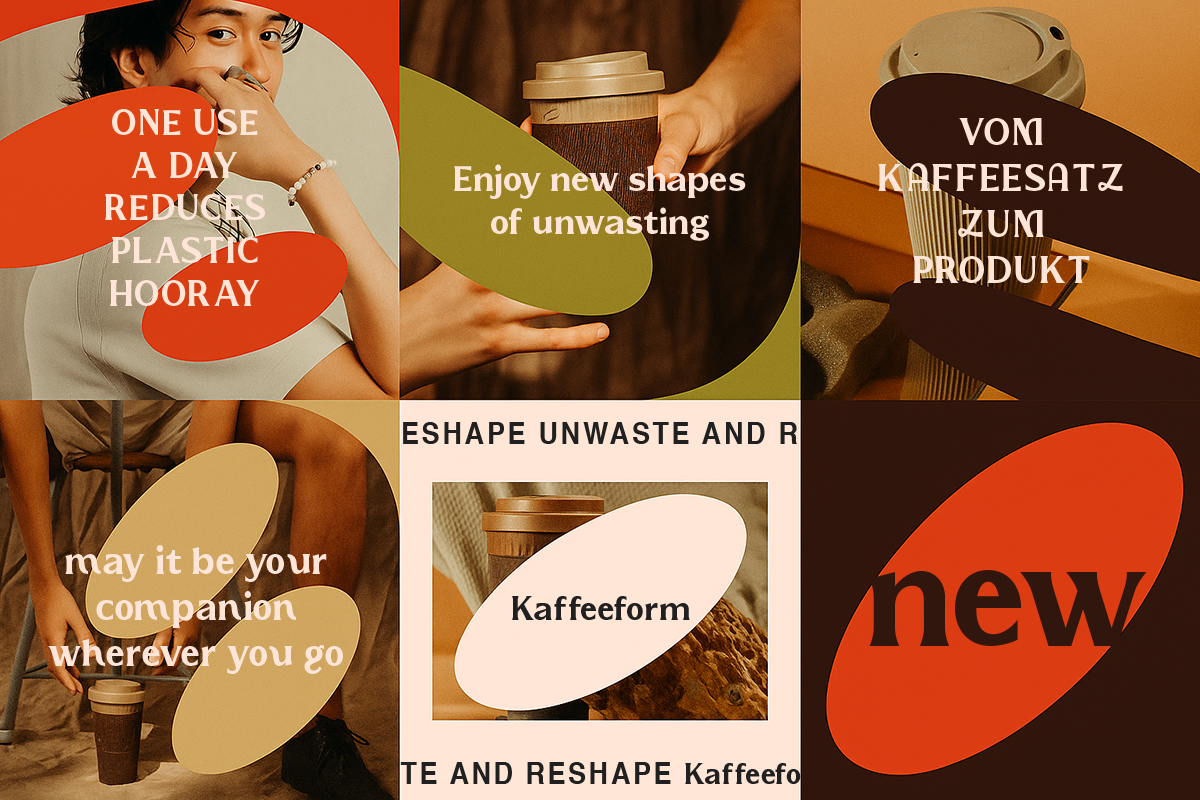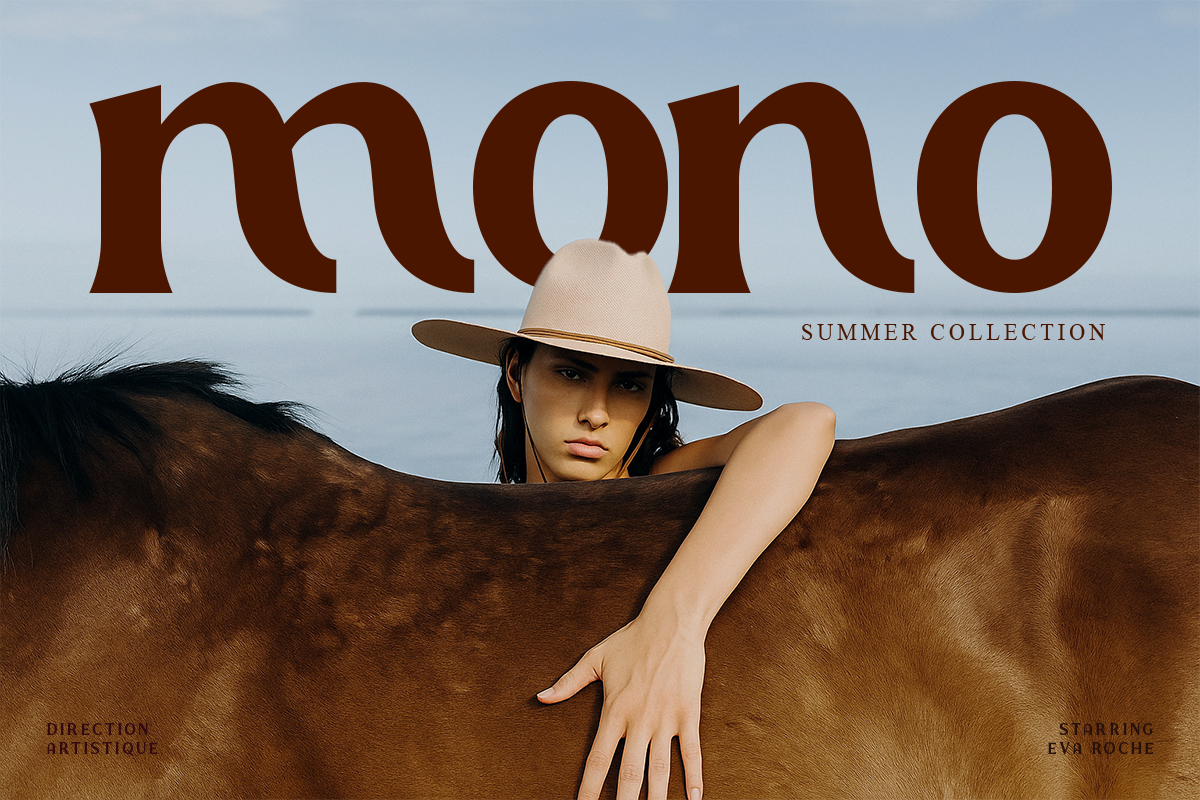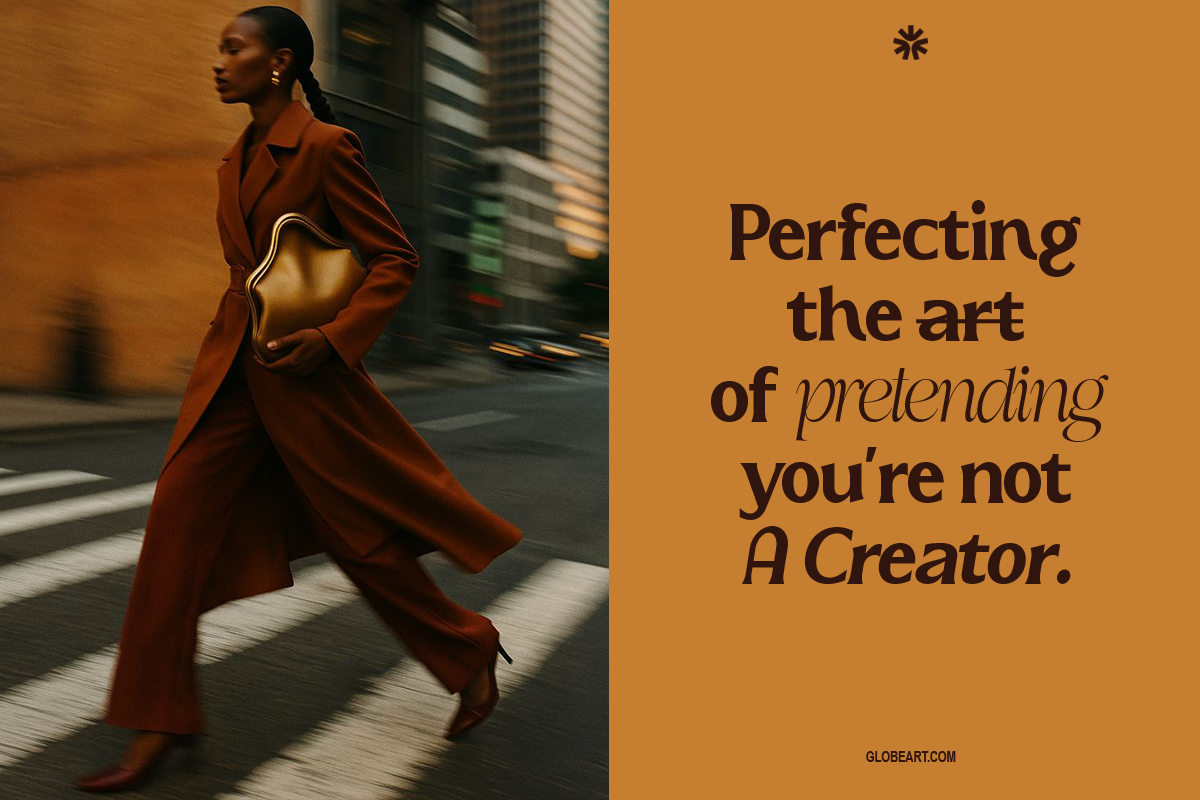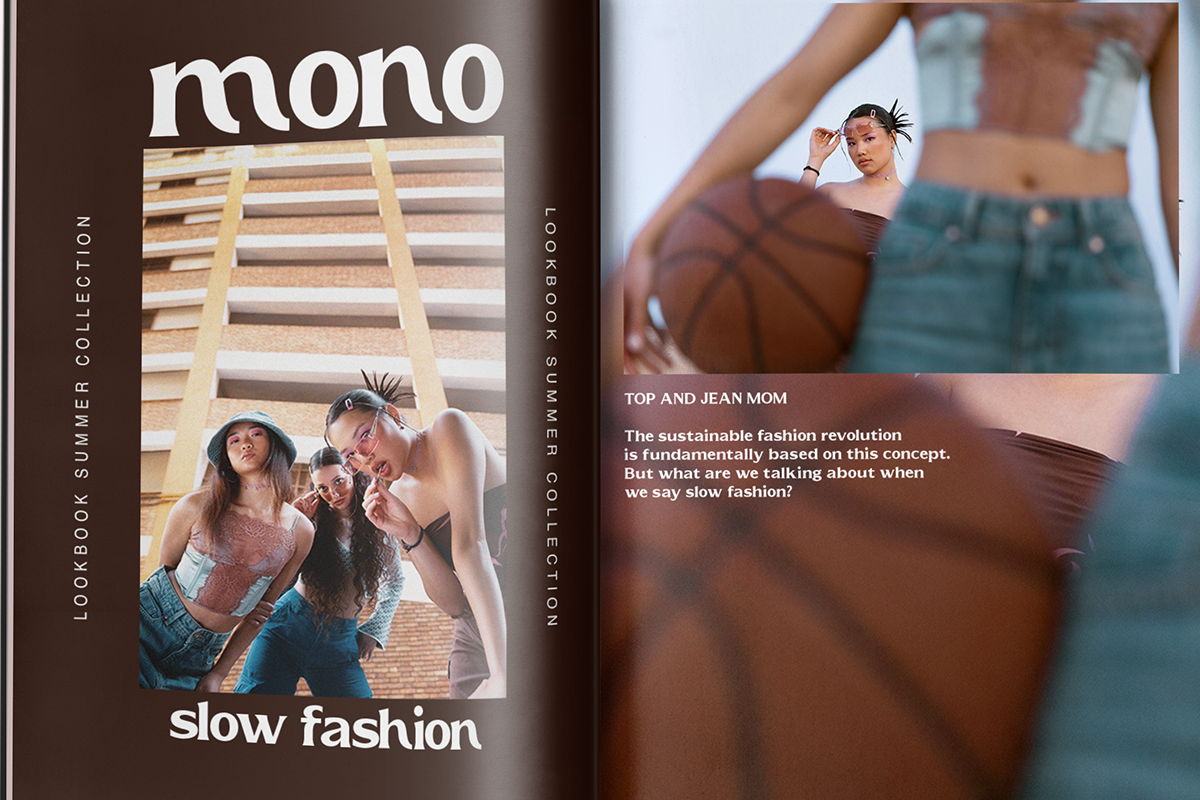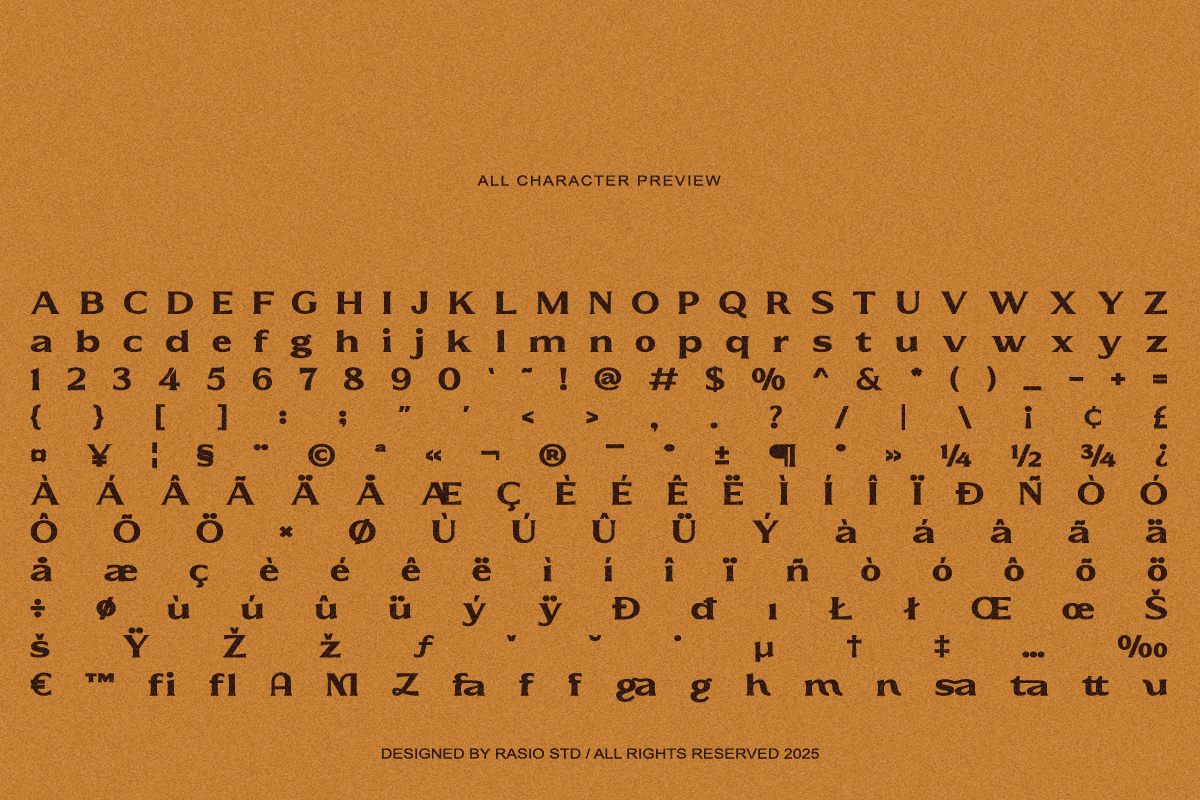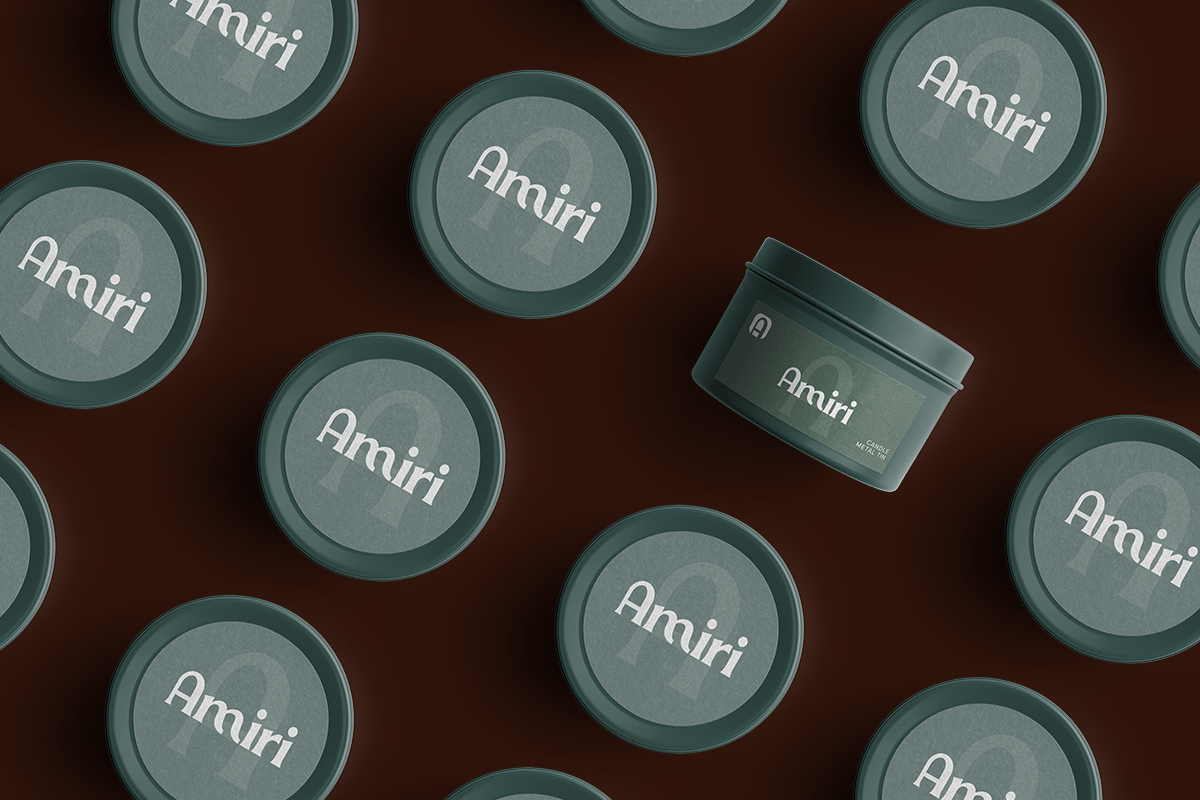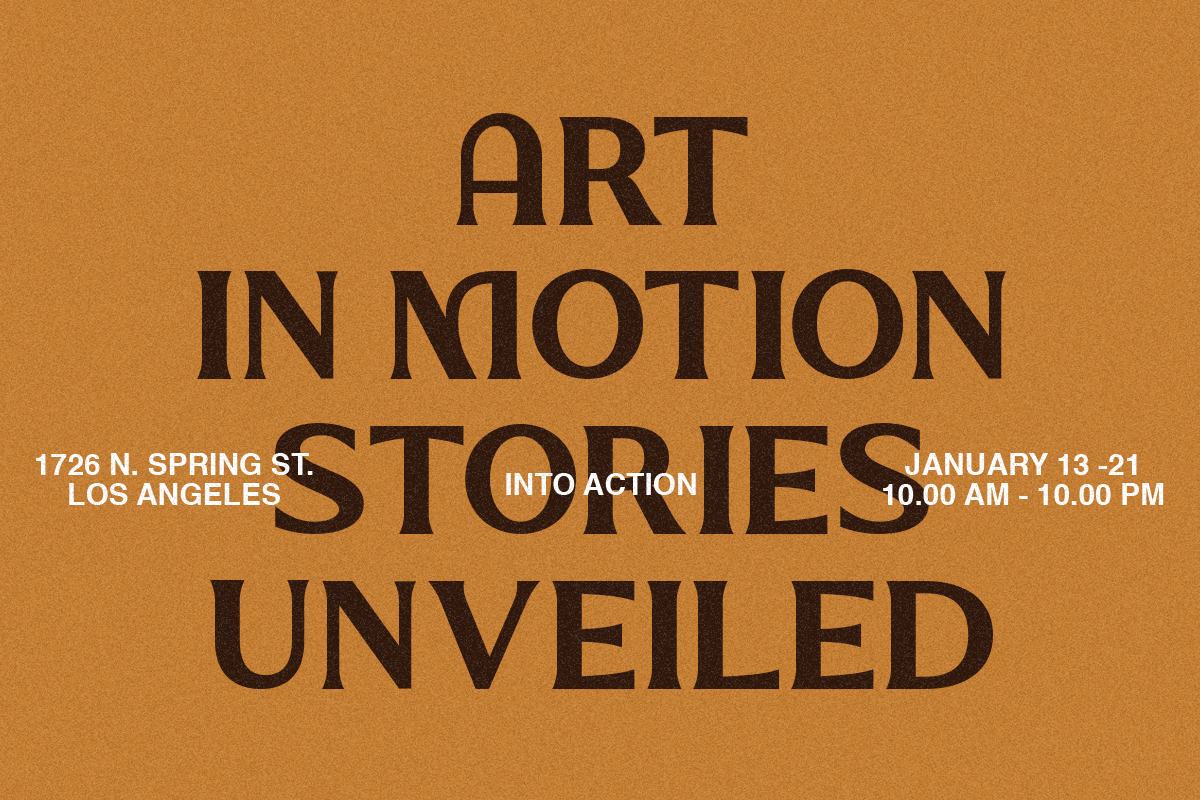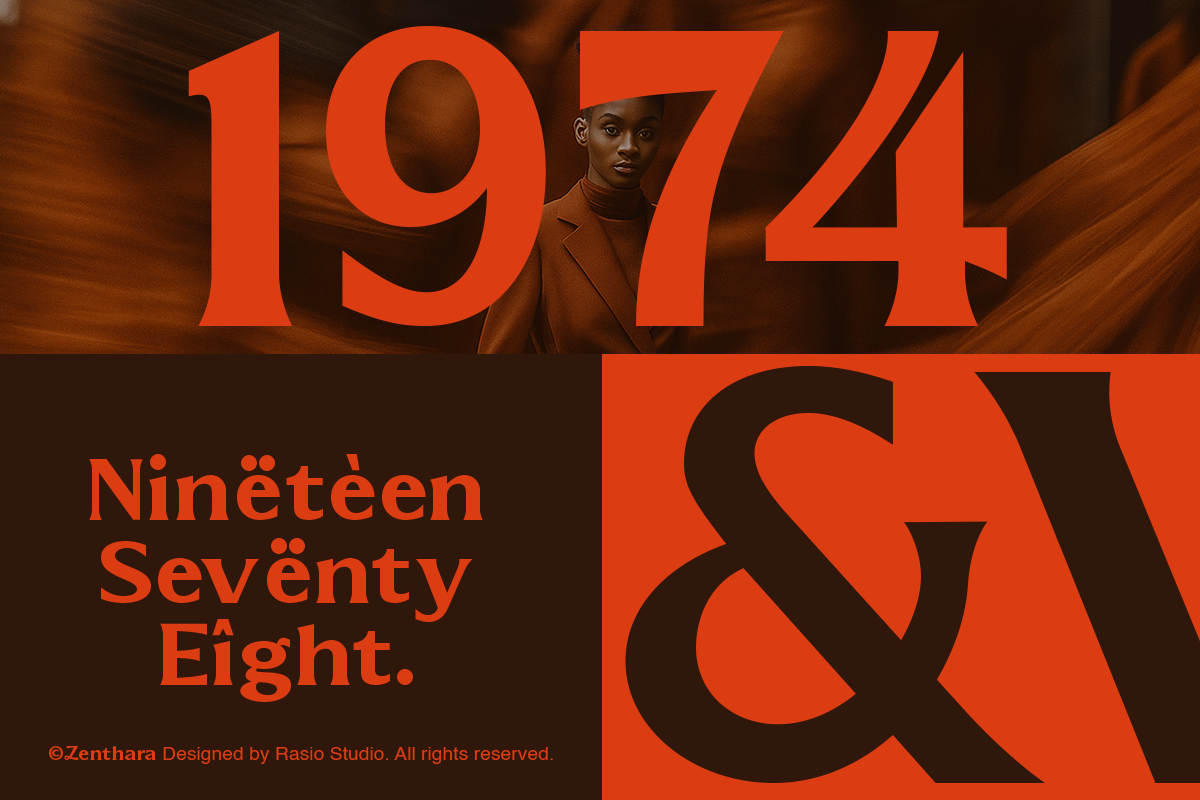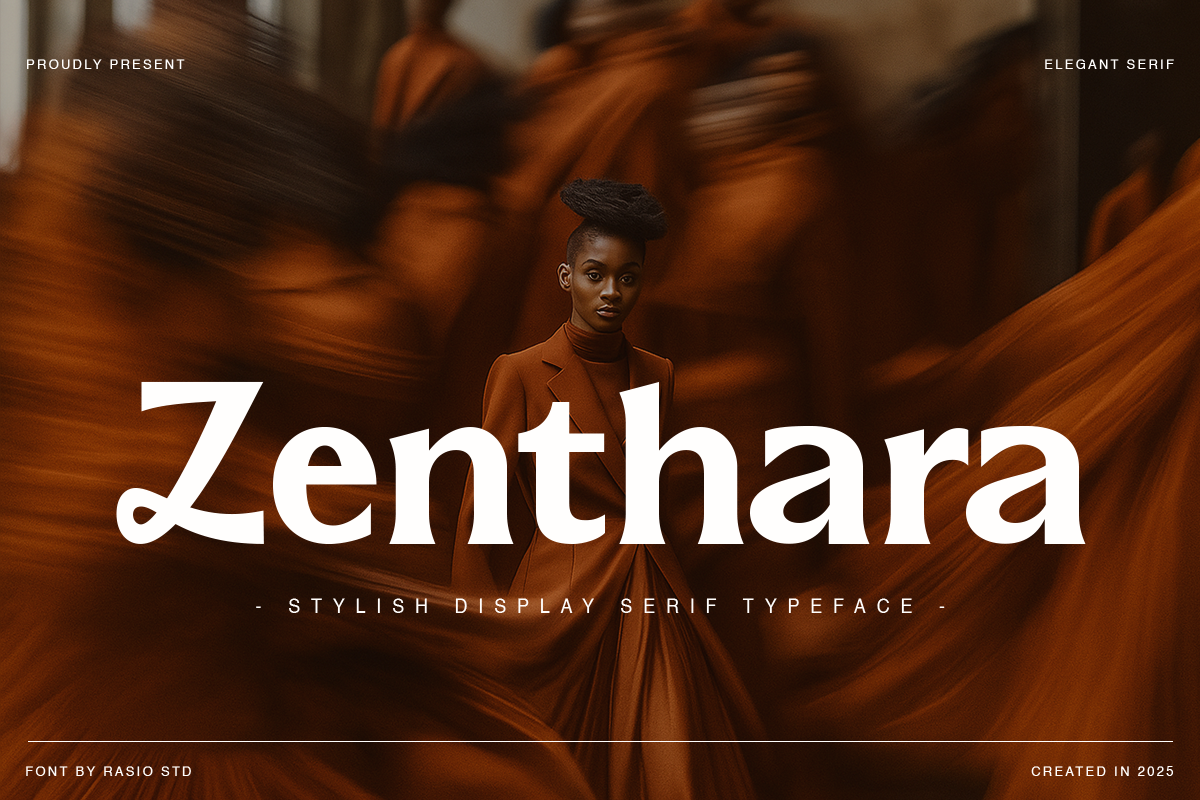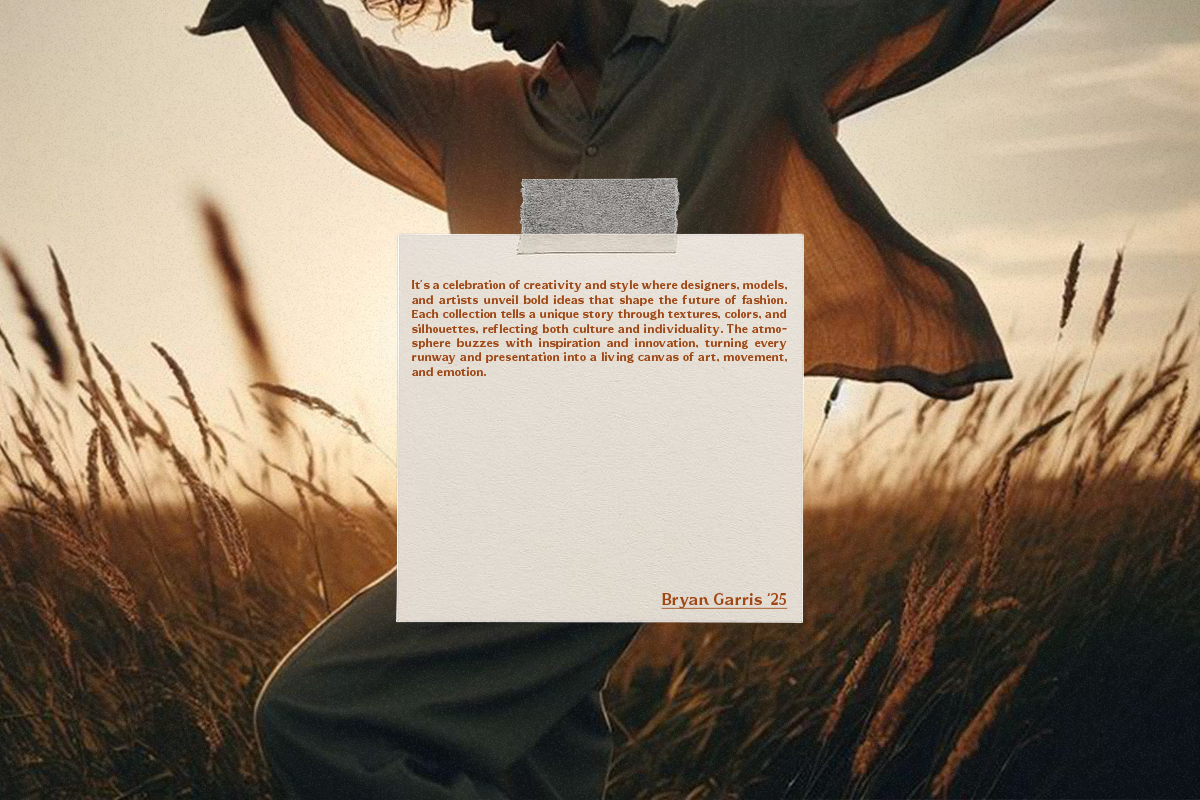
Zenthara Stylish Display Serif Font
Zenthara is a stylish display serif typeface that blends classic elegance with bold contemporary presence. Designed with refined serif details, smooth curves, and confident proportions, this typeface delivers a luxurious and high-fashion aesthetic. The letterforms feature balanced contrast between thick and thin strokes, creating a dramatic yet sophisticated rhythm across headlines.
Zenthara is perfect for luxury brand identities, fashion campaigns, editorial layouts, magazine headlines, premium packaging, cosmetic branding, restaurant menus, and high-end marketing materials. Its dramatic contrast and refined serif structure make it ideal for projects that demand elegance, authority, and visual impact. Whether used for digital campaigns or print designs, Zenthara elevates typography with timeless sophistication.
- High-contrast serif construction with refined thick and thin transitions
- Sculpted serif details that create a dramatic yet sophisticated presence
- Elegant curved terminals and sharp structural edges for visual authority
- Balanced proportions with confident vertical stress for editorial impact
- Carefully adjusted spacing optimized for striking headlines
- Fashion brand identities seeking bold elegance and strong visual character
- Editorial magazines, lookbooks, and high-impact headline layouts
- Luxury product packaging and premium label designs
- Posters, campaigns, and visual branding with dramatic presence
- Social media visuals and marketing materials that demand attention
Zenthara is crafted for fashion-led designs that demand confidence and elegance